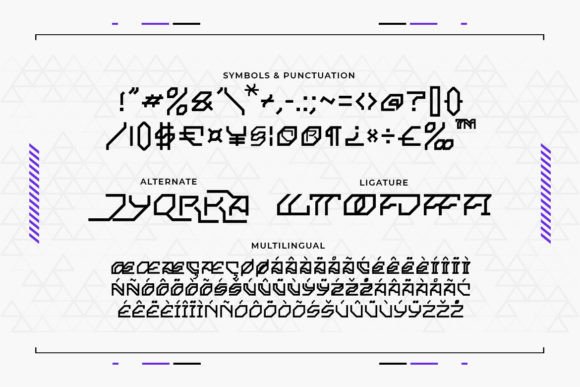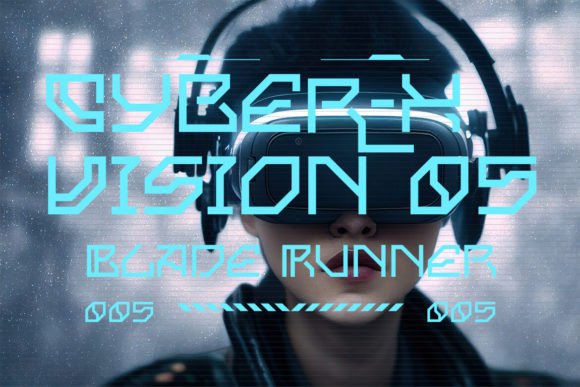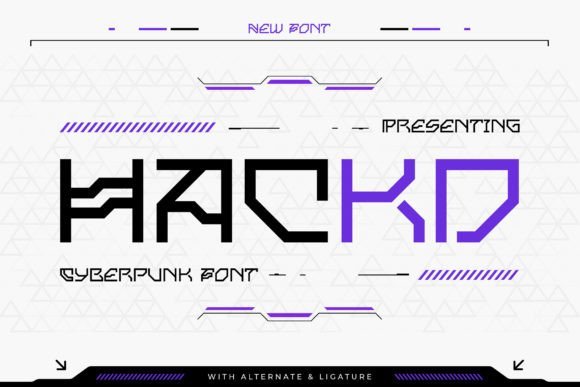
Introduction to Hackd Font
Introducing β€œHackd” – a cyberpunk font that transports your designs into the neon-lit streets of a futuristic metropolis, infusing them with the edgy energy of cyberpunk culture.
With its sleek lines and futuristic aesthetic, β€œHackd” embodies the essence of cyberpunk typography, offering a bold and dynamic visual language for your projects Whether you’re designing game interfaces, movie titles, tech blogs, or album covers, this font adds a touch of dystopian allure and rebellious spirit to your designs.
Key Features of Hackd Font